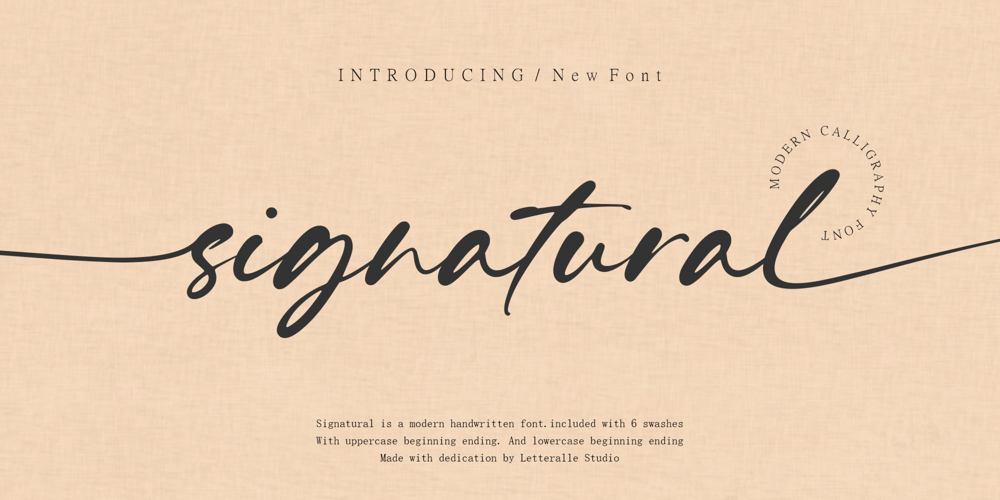
Signatural Font Family was designed by Annas Alam Yahya and published by Letteralle. Signatural contains 1 styles and family package options. I’d like to introduce you Sigantural! a wonderful cursive signature font. As the name implies, this font is made for those who need a font with a signature style, with a real handwriting vibe. Scratches that are natural or arguably imperfect, actually add a warm and close impression to the user. Signatural is very valuable to additional your handwritten and signature font.Signatural comes with :- Ligatures – Swashes (including ending, begining, and underline swashes) for each letters. To access underline swashes you only need to type _1 until _6.- Multilingual supportSignatural is perfect for many design needs such as merch, T-shirts, titles, book covers, social media posts, websites, events, and many more.Enjoy the font,Thank You!